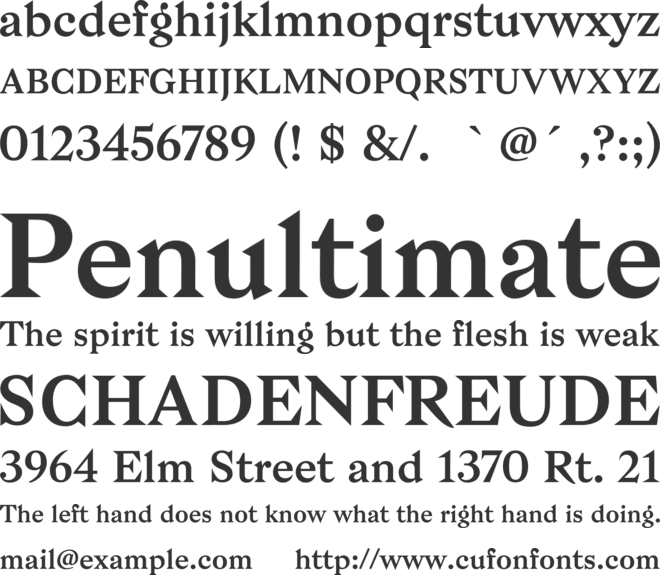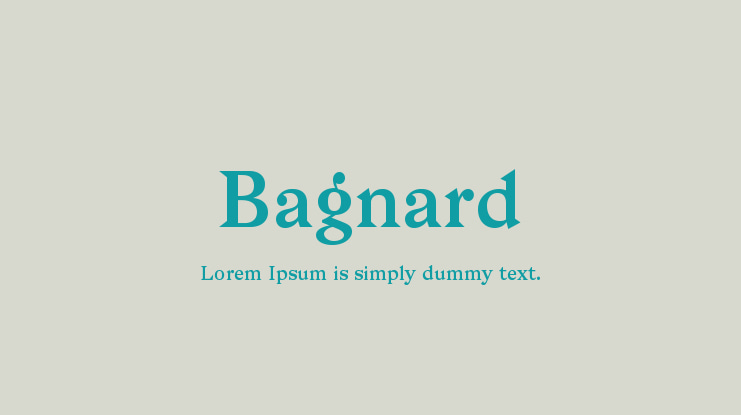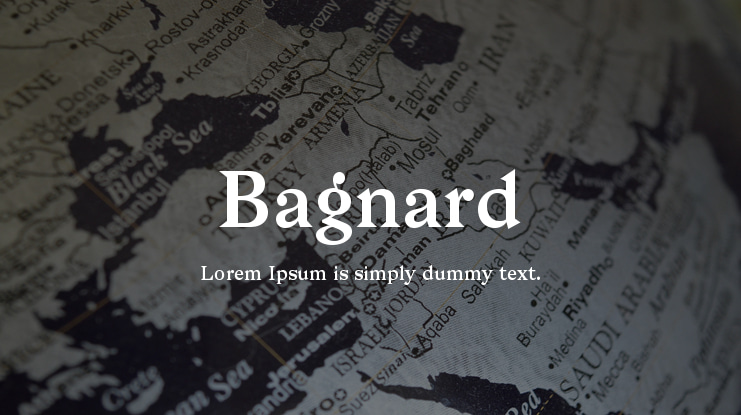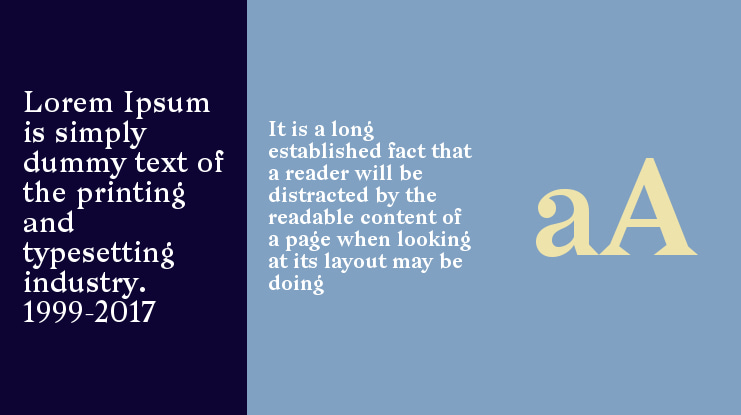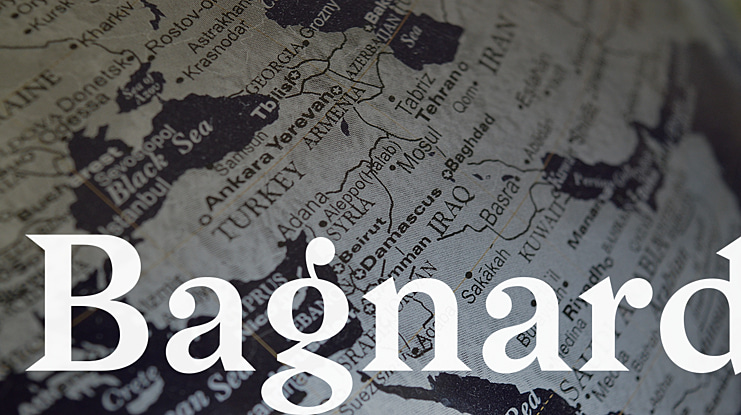
Bagnard Font
Bagnard is a font by Sebastien Sanfilippom (http://www.love-letters.be/) inspired by the graffitis of an anonymous prisoner of the napoleonic wars. (https://github.com/sebsan/Bagnard)